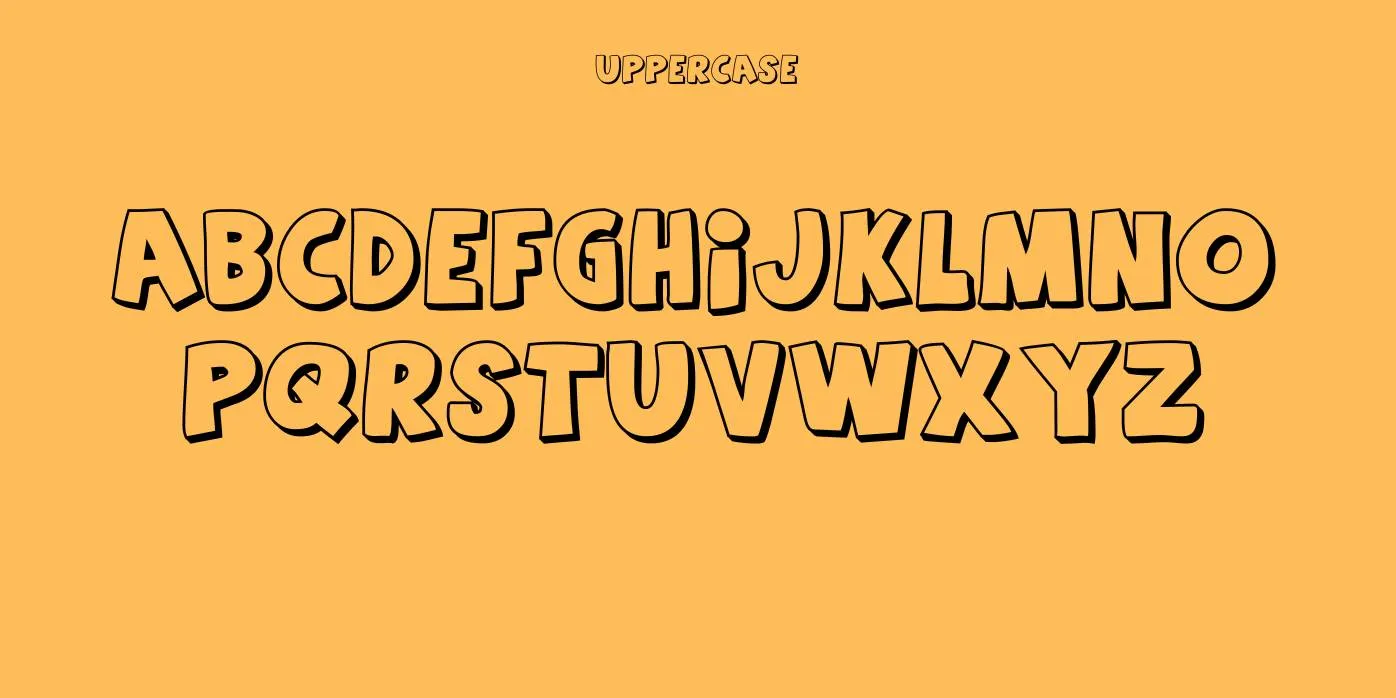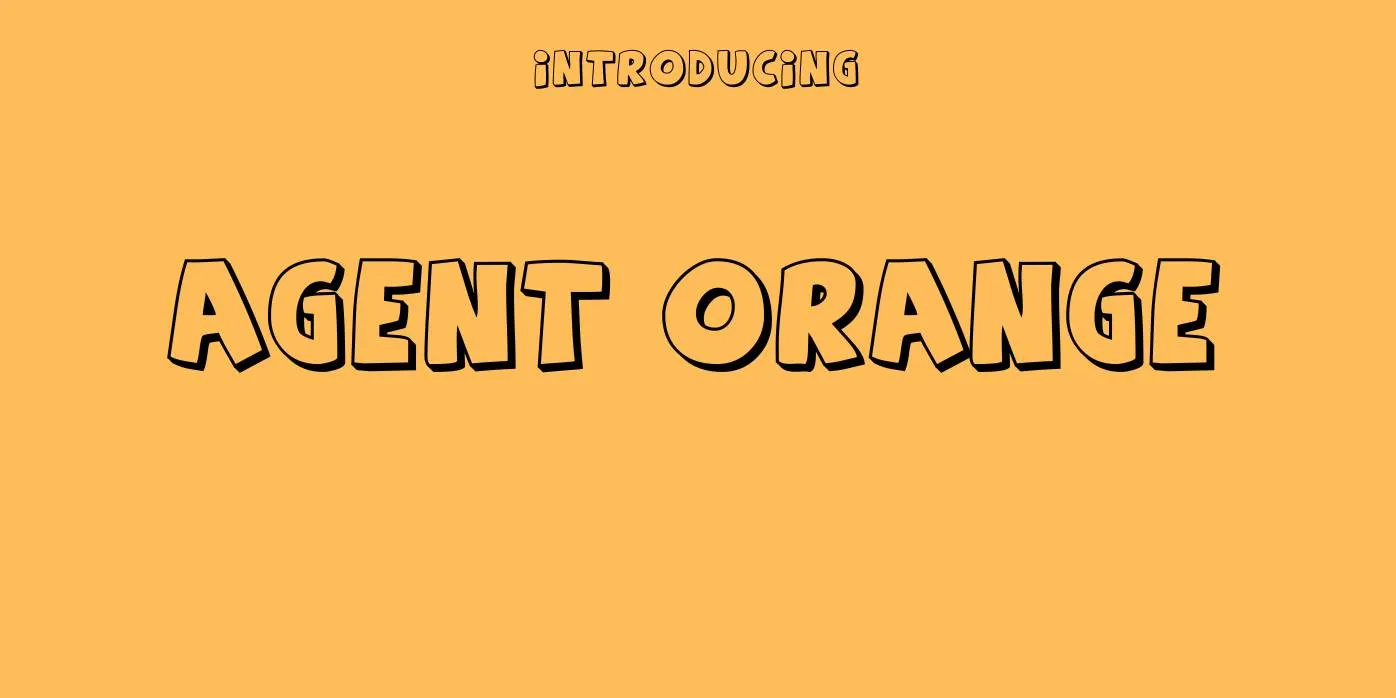
Agent Orange Font
You are going to read about the famous typeface that has applications in every type of field. Agent Orange Font is a cartoon type of texture. Pizzadude is the designer for this typeface. This typeface has bold characters.
The stunning property that I like about this typeface is that the characters for this typeface are bold as well as hollow. This property increases the attractivity of this typeface. Moreover, this typeface has a tool that generates the text in this typeface online. There is a section for this typeface in which we put the text in some other font.